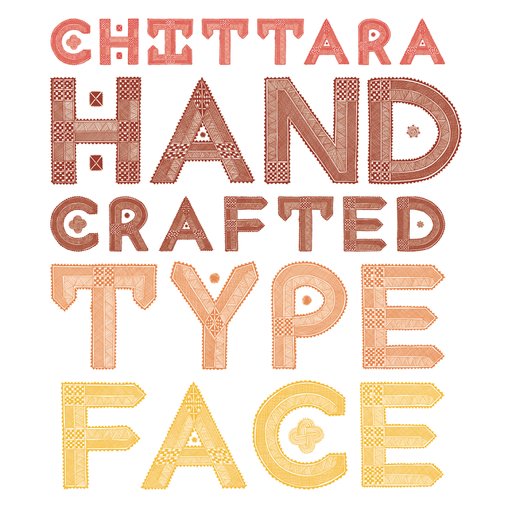
Chittara: how a village floor decoration became a font
Chittara is an art form in which clay paste is used to create geometric patterns on the floors and walls of entrances of houses.​This art form, which originated from ancient cave paintings, eventually found its way to the walls and floors of village homes. The Kannada word Chittara (which is relate…